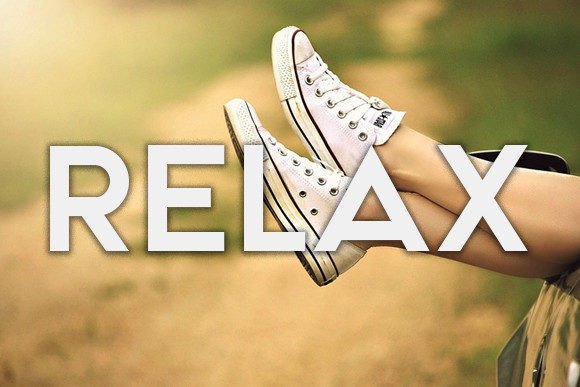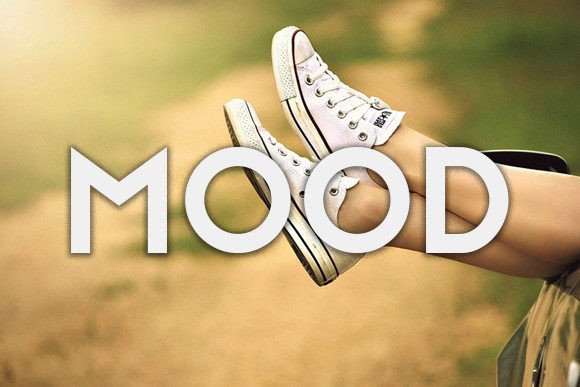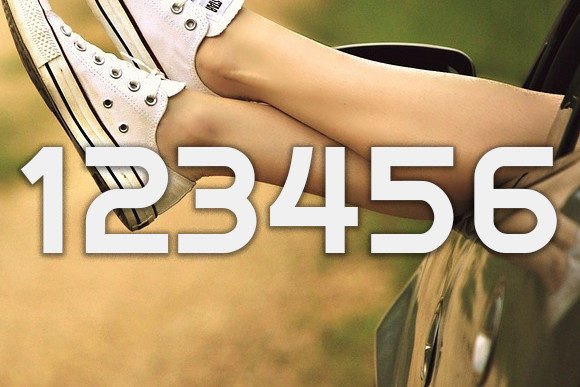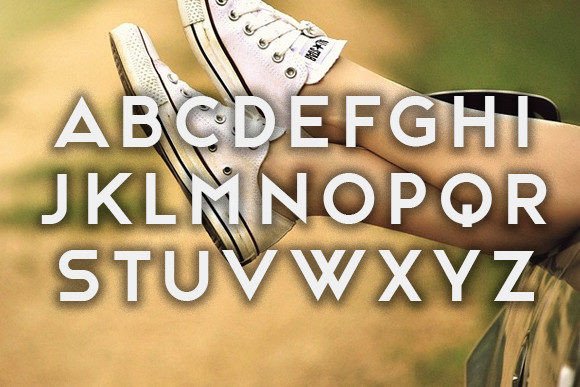
The Ultimate Guide to Chill Font: Elevate Your Designs with Elegance
Have you ever been in the middle of a design project, and suddenly, you’re stuck on finding the perfect font? I recall a particularly frustrating experience while working on a client’s flyer design. The project had a tight deadline, and I was struggling to find a font that was both elegant and eye-catching. That’s when I stumbled upon the Chill font, and it instantly transformed my design. In this article, we’ll dive into the world of Chill font, exploring its features, uses, and everything in between.
A Personal Encounter with Chill Font
As a designer, I’ve had my fair share of font struggles. But when I discovered Chill, I knew I had found something special. This elegant sans serif font has been a game-changer for my designs, and I’m excited to share its awesomeness with you. From flyers to posters, and t-shirts to social media graphics, Chill font is an incredibly versatile addition to any creative project.
An Honest Review of Chill Font
- ✅ Elegant and sophisticated design
- ✅ Highly versatile and adaptable to various design projects
- ✅ Easy to read and understand, even at smaller font sizes
- ✅ Extensive character set, including OpenType features and glyphs
- ⚠️ Limited availability of certain stylistic alternates
- ⚠️ May not be the best fit for extremely bold or attention-grabbing designs
A Practical Guide to Using Chill Font
- Experiment with OpenType features, such as ligatures and stylistic alternates, to add a touch of elegance to your design.
- Explore the font’s glyphs and OpenType features to add visual interest to your design.
The Backstory of Chill Font
Chill font was designed with the intention of creating a clean, elegant, and versatile sans serif font. The designer aimed to craft a font that would be perfect for creative designs, from flyers to posters, and t-shirts to social media graphics. With its extensive character set and OpenType features, Chill font has become a popular choice among designers.
Q: What makes Chill font so special?
A: Chill font’s elegant design, versatility, and extensive character set make it a standout among other sans serif fonts.
Q: Is Chill font suitable for body text?
A: While Chill font is elegant and easy to read, it may not be the best choice for lengthy body text. It’s better suited for headings, titles, and short paragraphs.